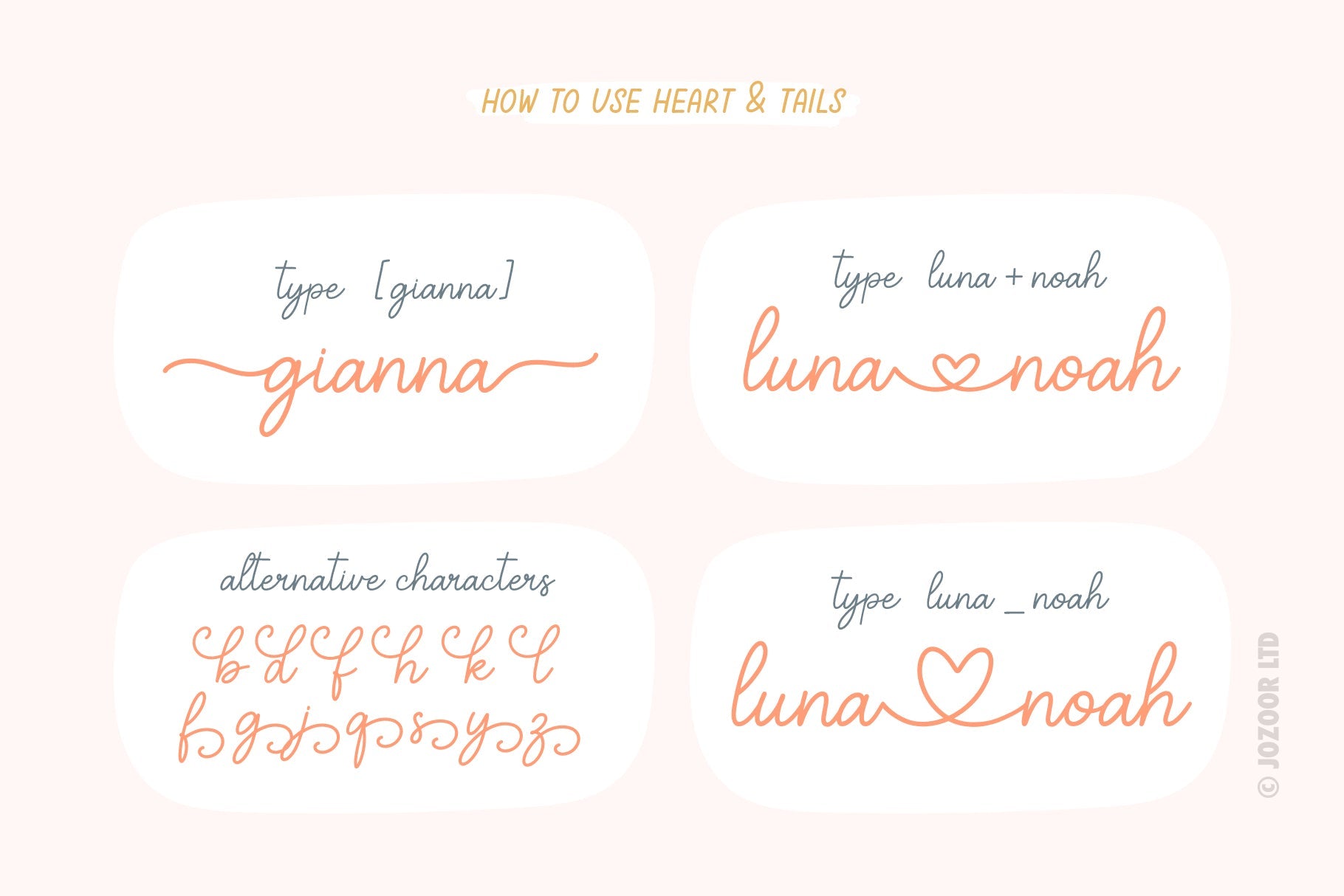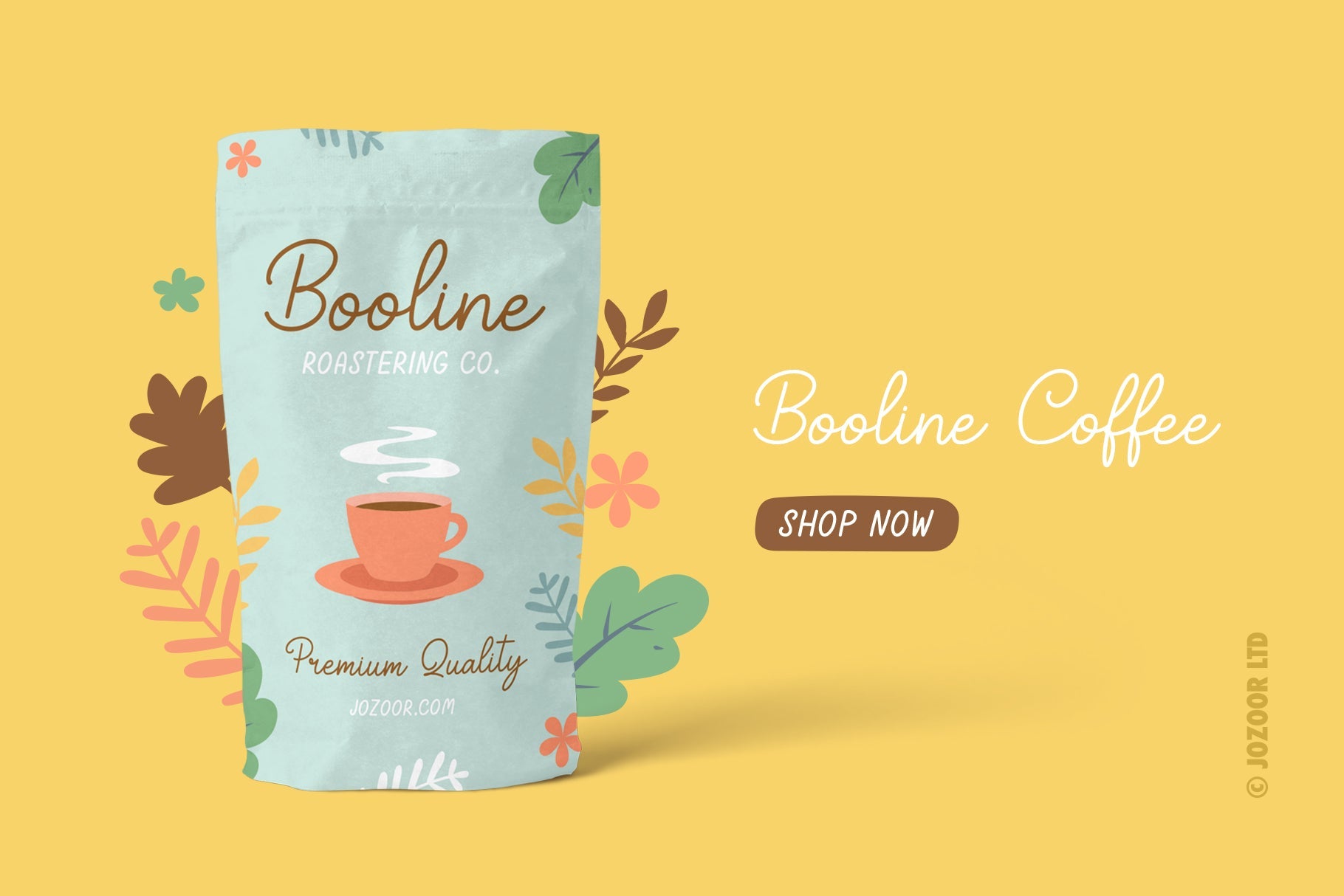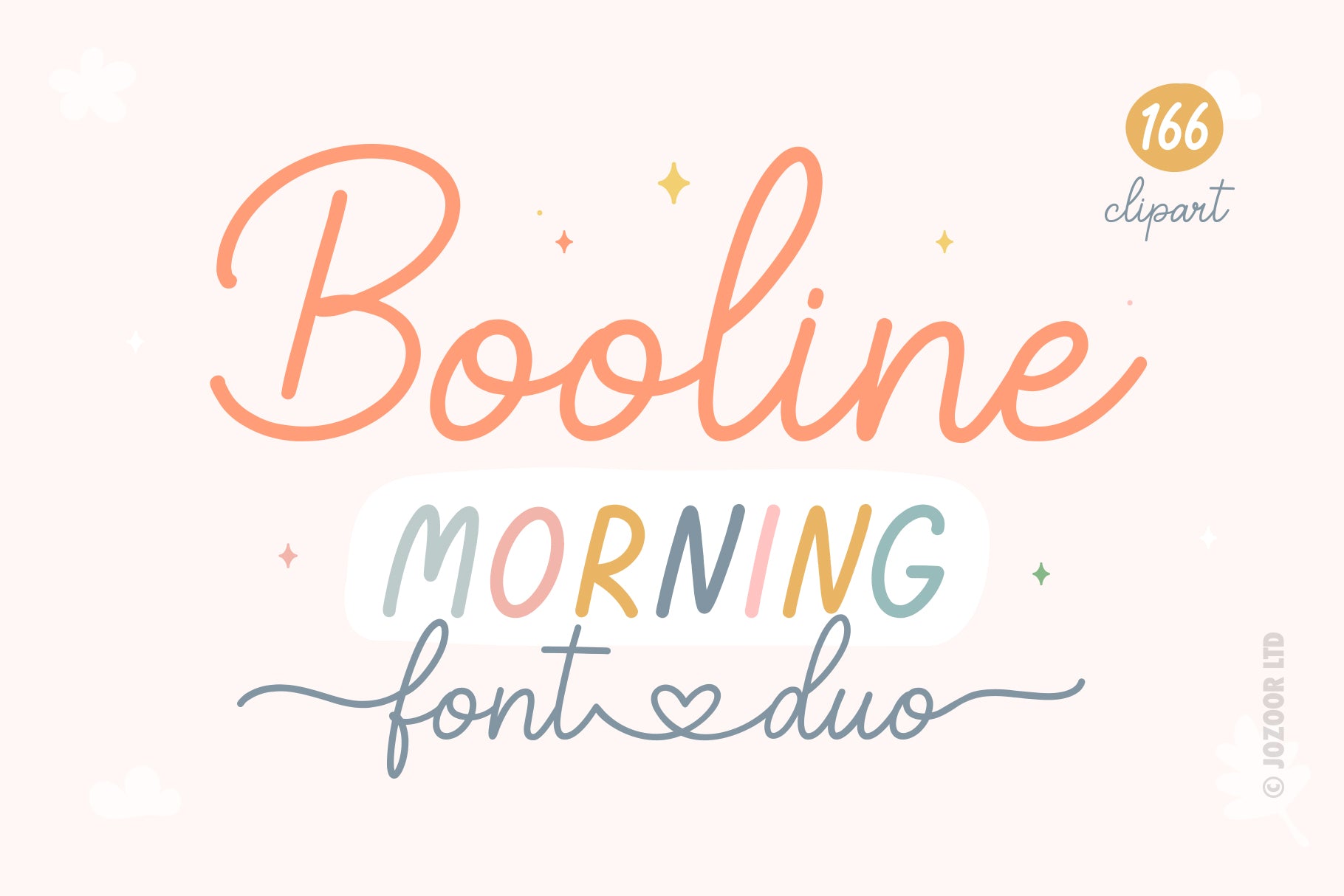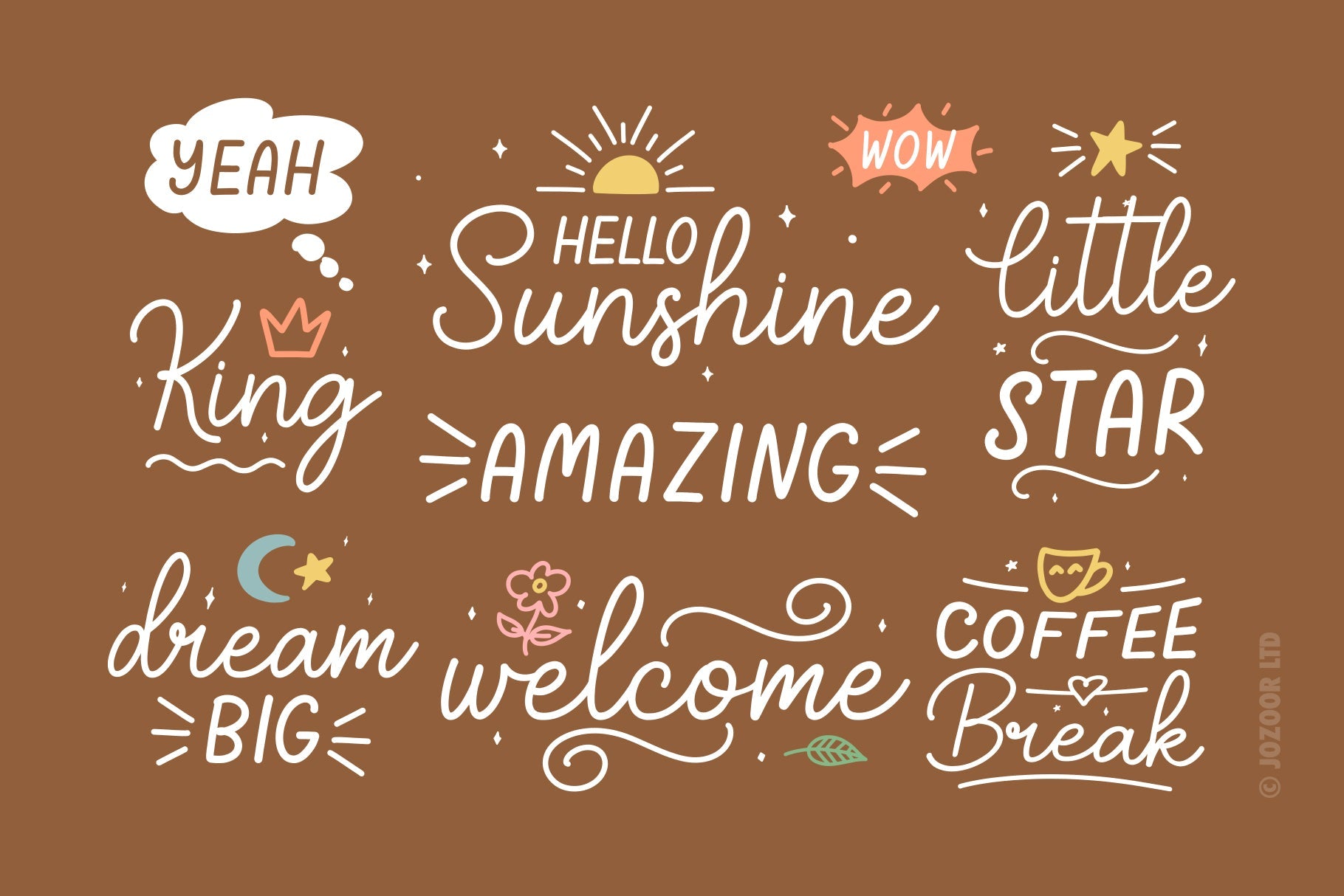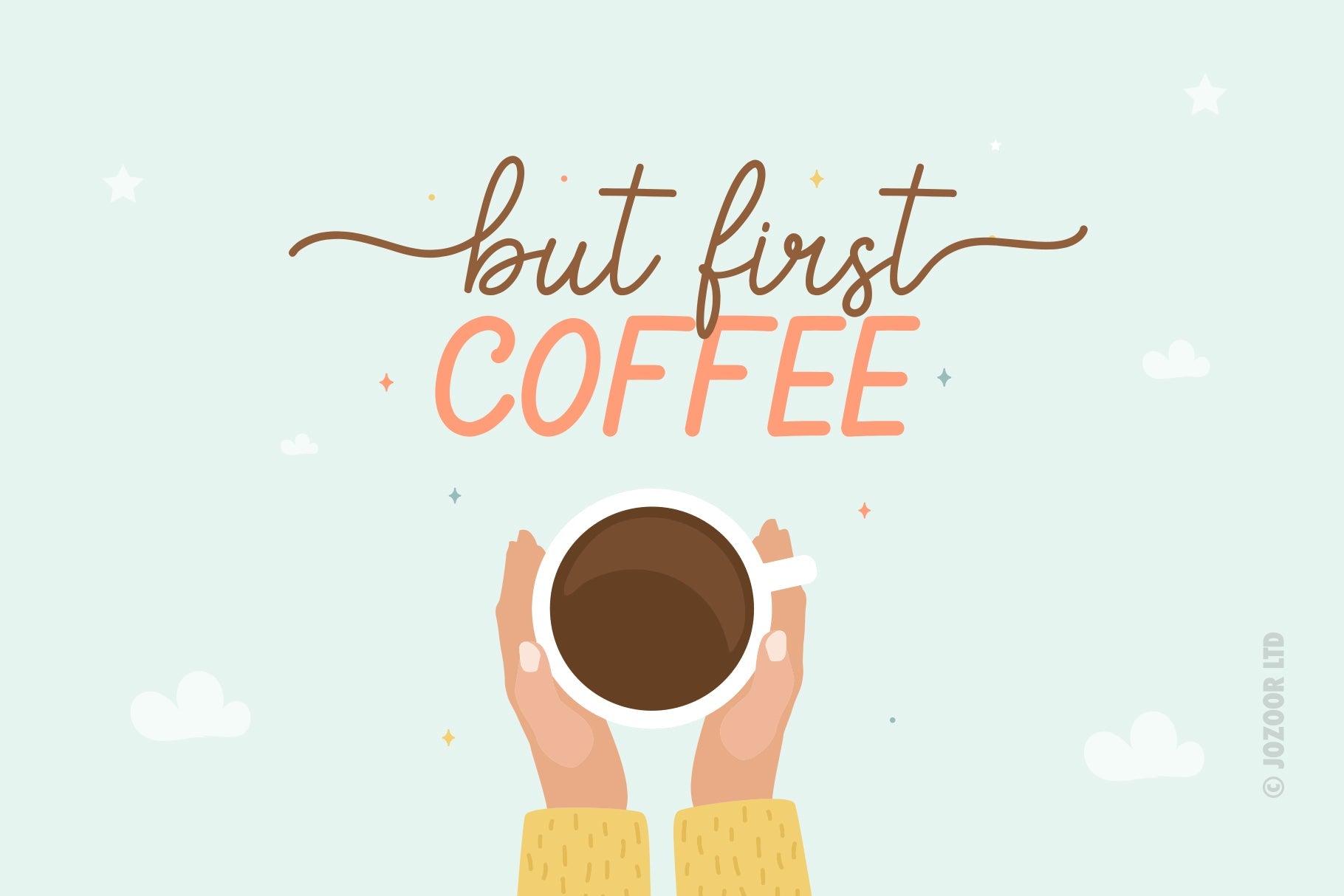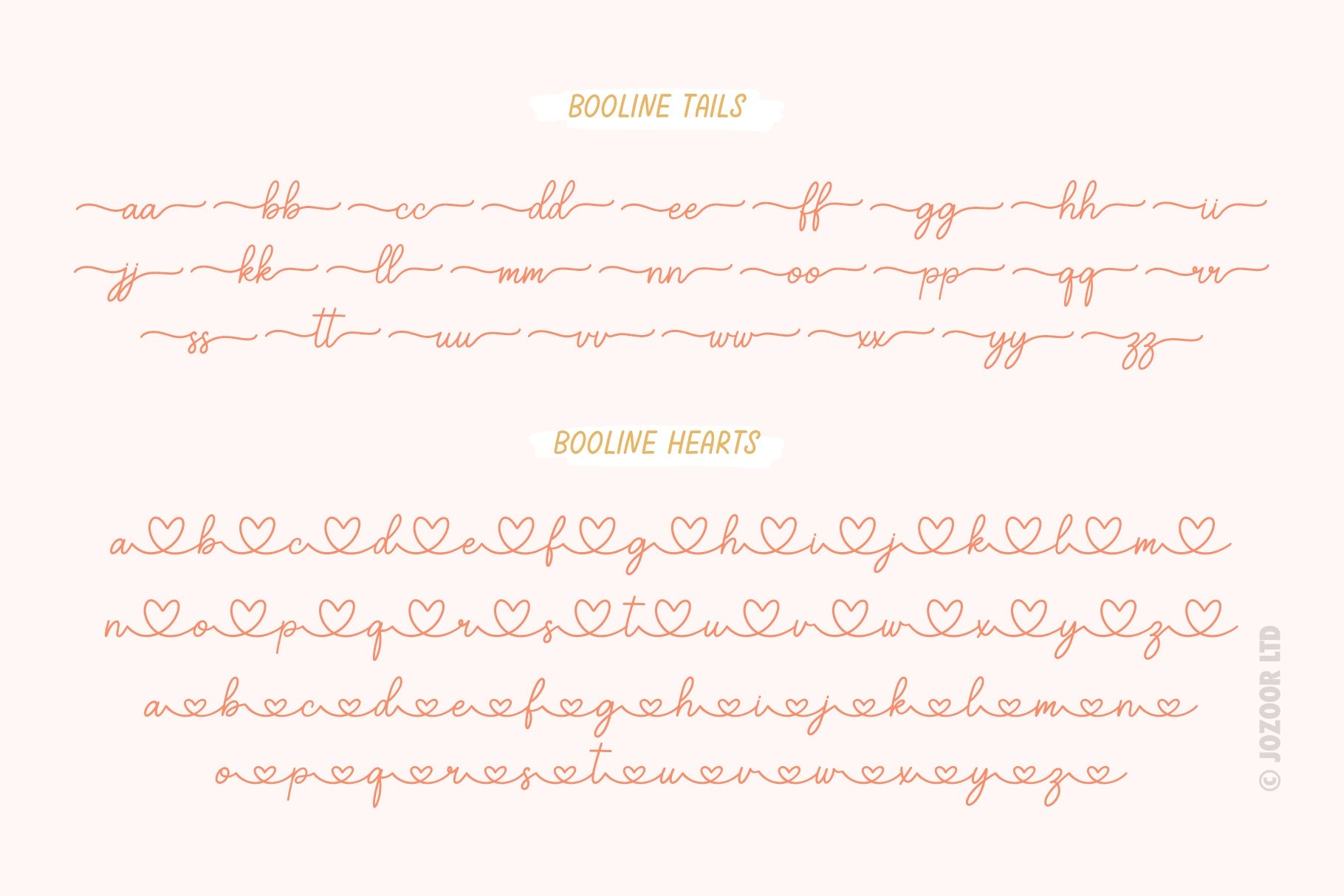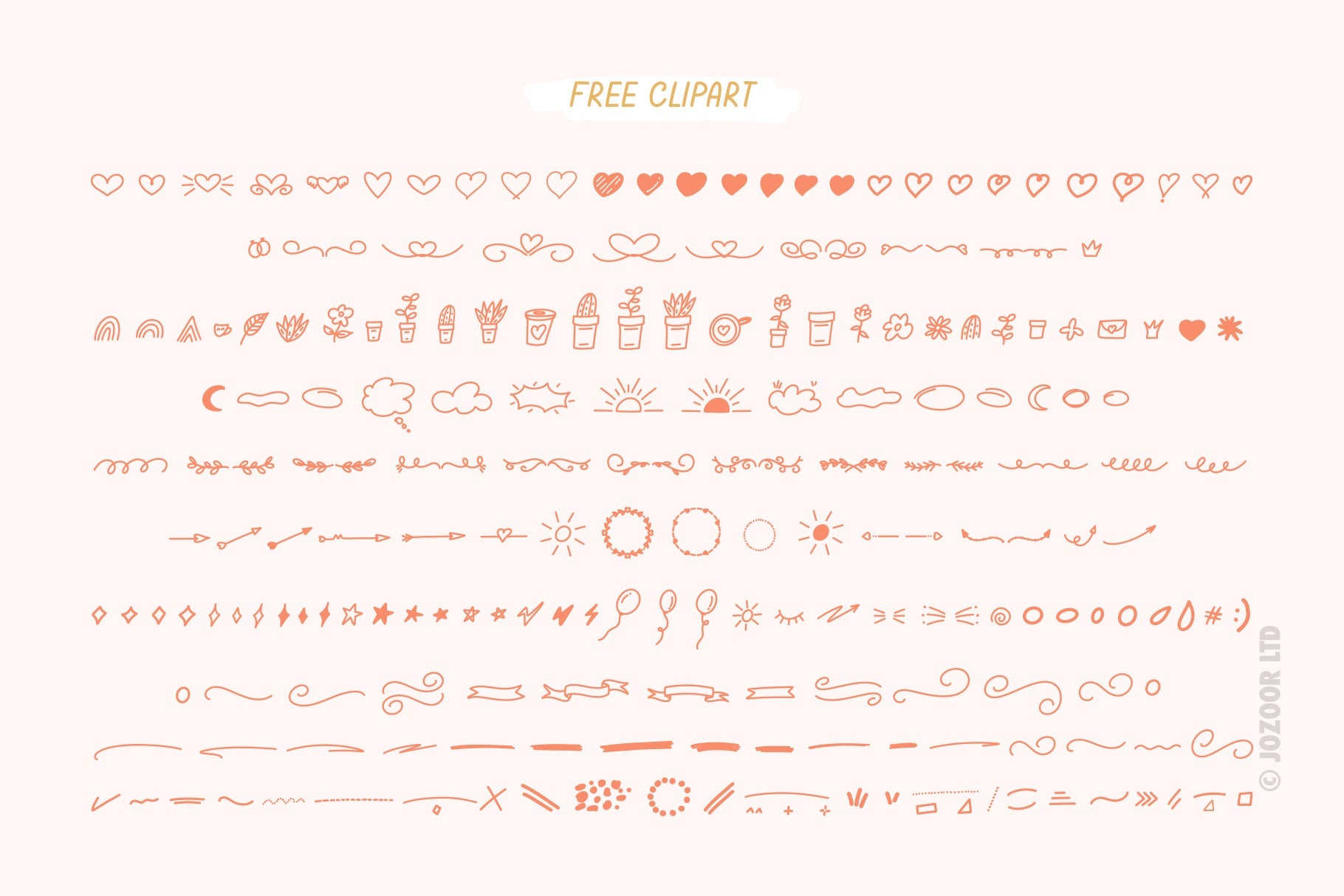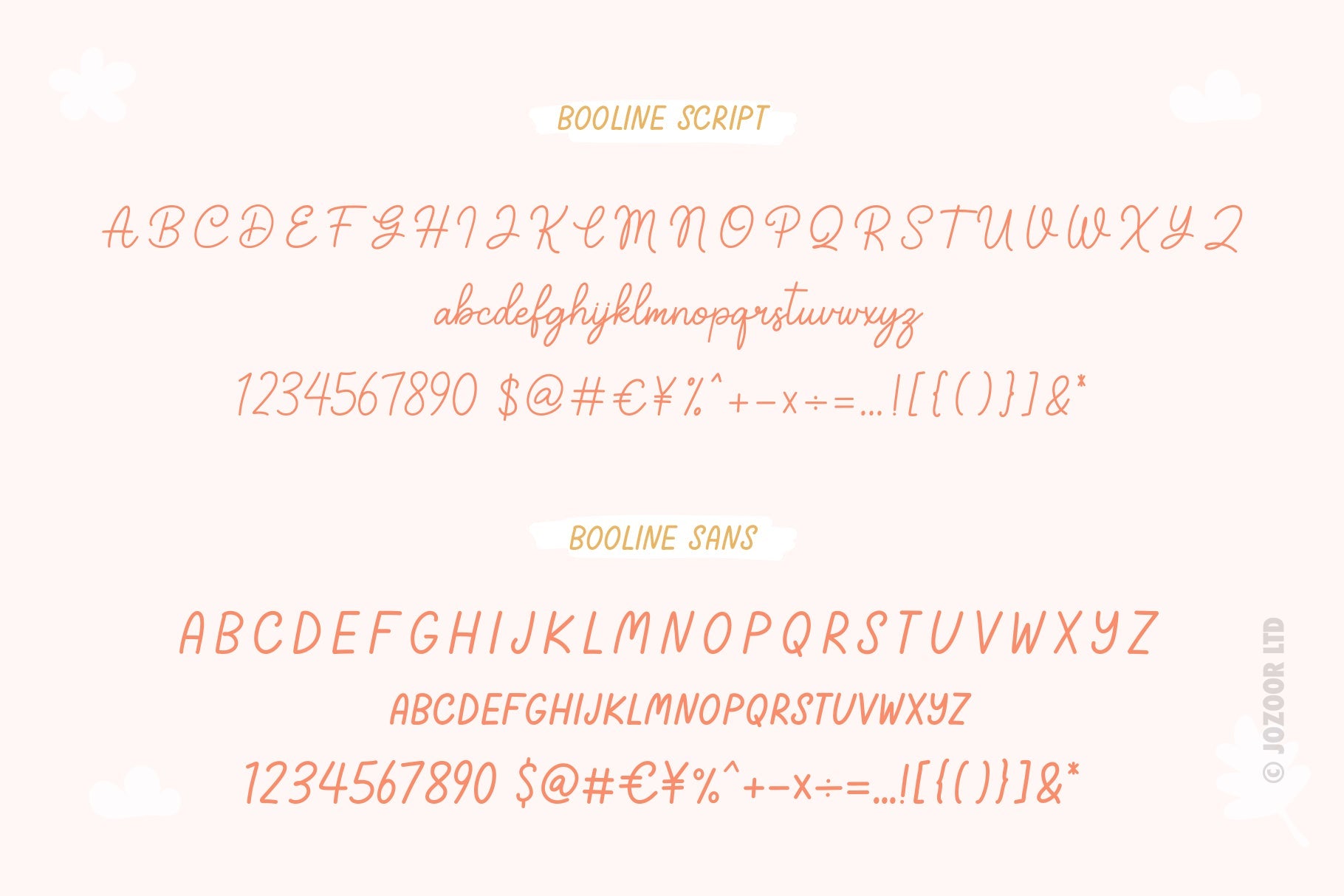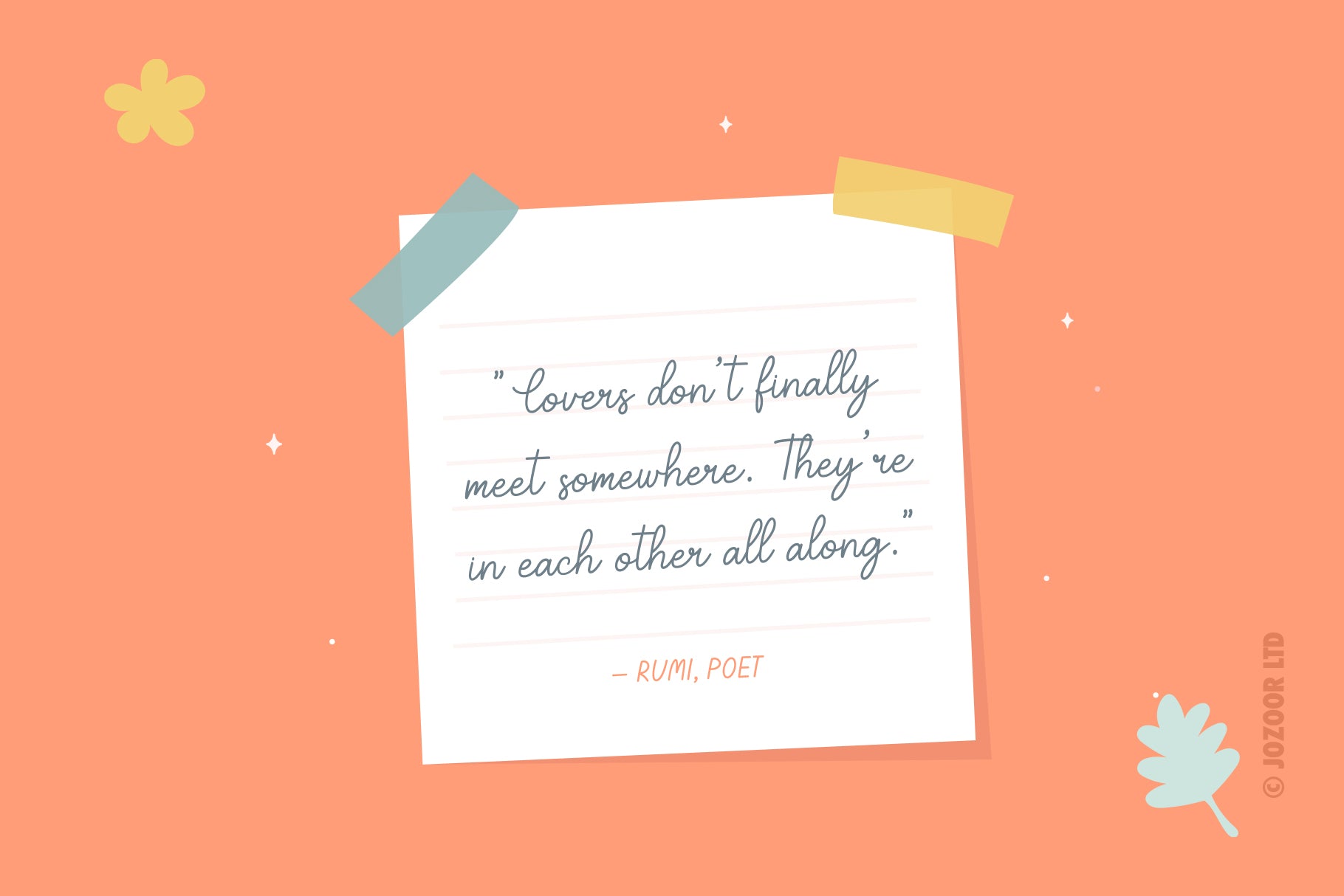
Booline Morning – Monoline Font Duo
About Booline Morning – Monoline Font Duo
Booline Morning is a lovely heart monoline script font duo for wedding invitations, save the date cards, fine art papery, feminine branding, personal gift cards other romantic projects. Come with free clipart and quotes. Font Features: Beginning swashes (tails). Ending swashes (tails). Connecting hearts. You will get: (02) OTF Font Files. (02) TTF Font Files. (166) Clipart in SVG & EPS Files. (09) Quotes in SVG & EPS Files. User’s Guide PDF file. Hope you enjoy, and happy designing 🙂 ♥ JOZOOR